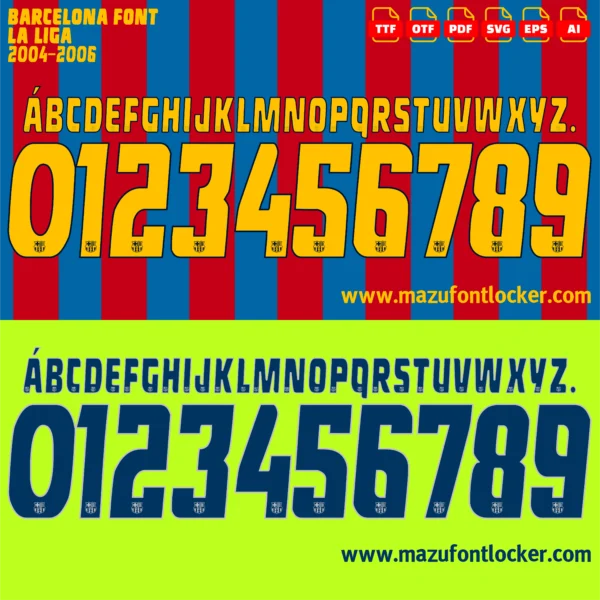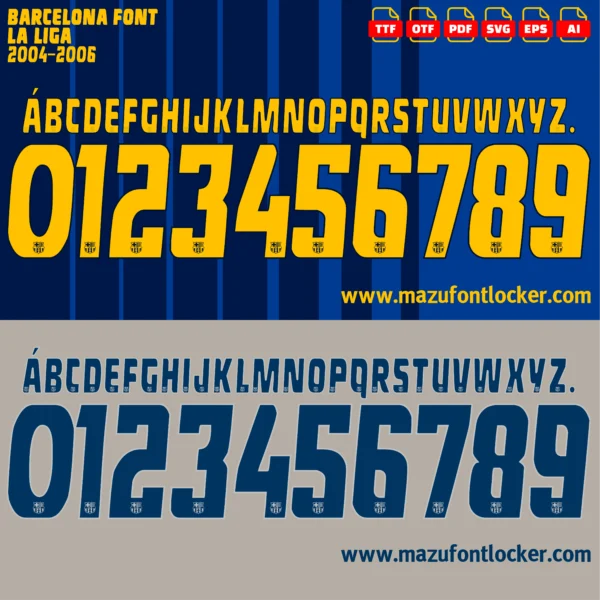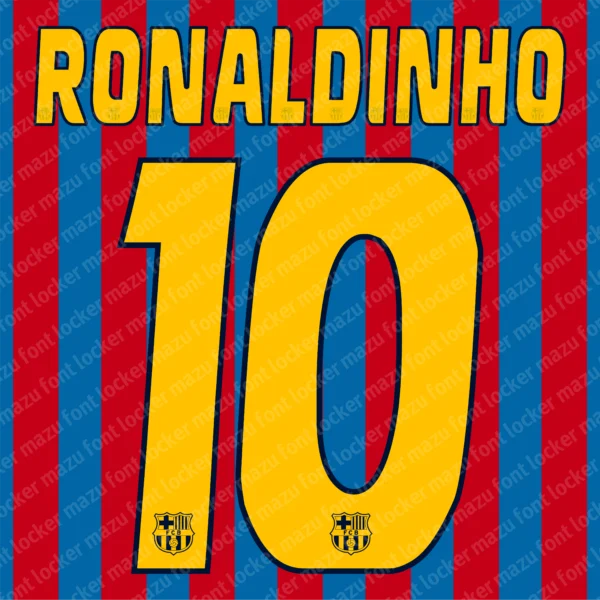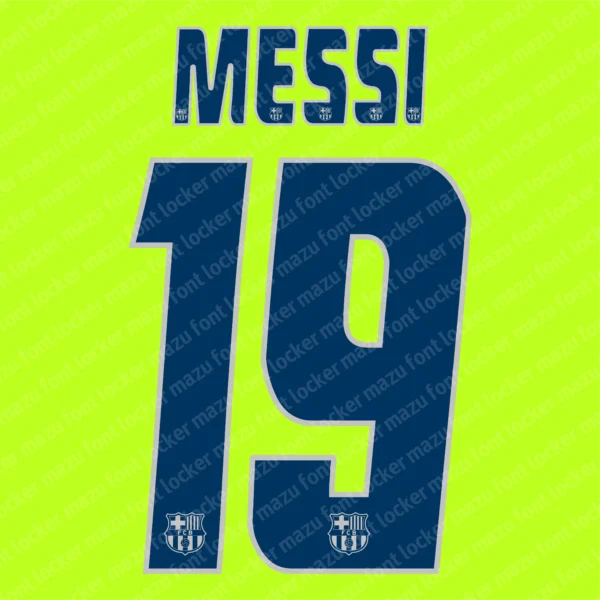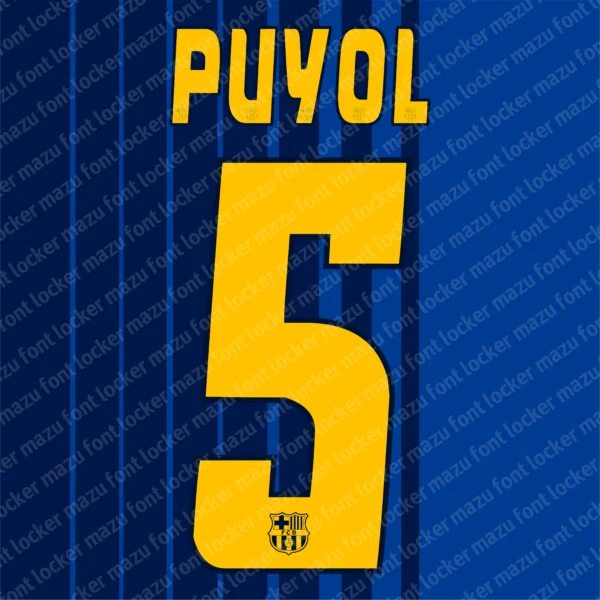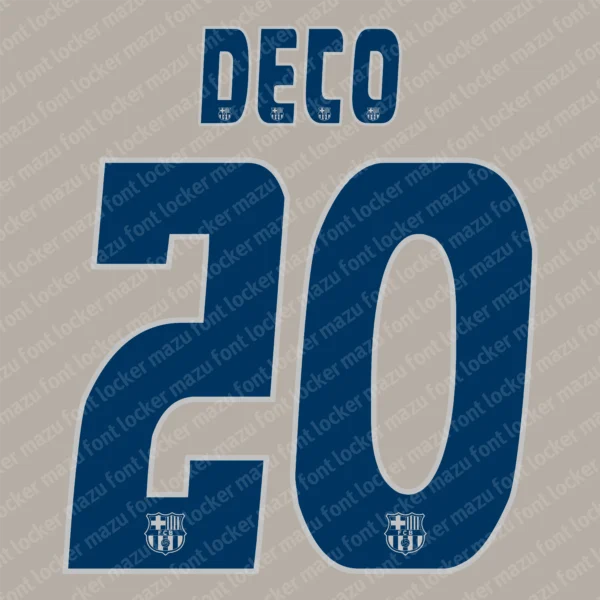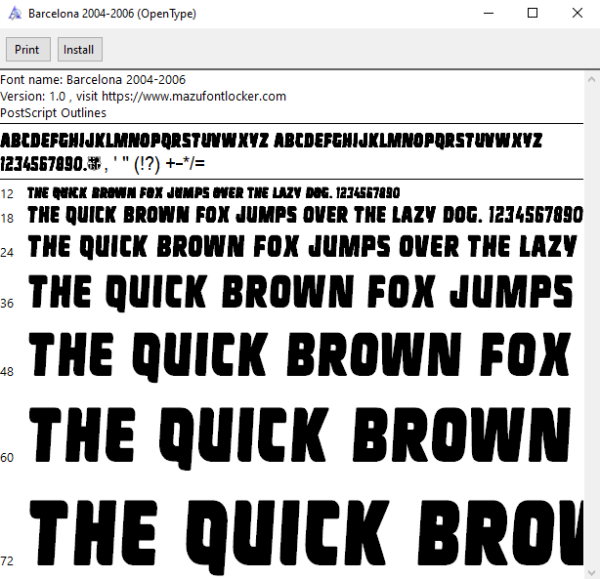
Barcelona 2004-2006 Font Vector – Iconic Blaugrana Heritage Typeface
The Barcelona 2004-2006 Font Vector is a premium typeface that accurately recreates the official match lettering worn by FC Barcelona during the legendary 2004-2006 seasons. This high-quality vector font kit captures the bold, clean, and instantly recognizable typography that perfectly complements the club’s iconic blaugrana identity.
Designed for professional designers, football enthusiasts, and passionate FC Barcelona supporters, the Barcelona 2004-2006 Font Vector delivers exceptional authenticity for creating realistic jersey mockups, football merchandise, social media graphics, match posters, and custom fan artwork. Every character has been carefully recreated to match the powerful and precise visual style of one of the world’s most successful and historic football clubs.
Why Choose Barcelona 2004-2006 Font Vector
This font stands out thanks to its precise vector construction and authentic club-inspired styling. Every letter and numeral has been meticulously recreated to match the official shirt lettering used throughout the 2004-2006 La Liga and European football campaigns. Whether you’re producing professional kit templates or creating eye-catching football content, the Barcelona 2004-2006 Font Vector delivers a genuine match-ready appearance inspired by the proud identity of the Catalan giants.
The lettering featured in the Barcelona 2004-2006 Font Vector combines clean geometric lines with powerful modern proportions. The result is a premium and highly readable typeface that reflects FC Barcelona’s winning mentality, attacking football, precision, and proud Blaugrana heritage.
- Complete uppercase A–Z alphabet and numbers 0–9 in authentic Barcelona 2004-2006 style
- Create authentic Barcelona 2004-2006 home and away jersey mockups
- Produce custom FC Barcelona-inspired merchandise and fan projects
- Recreate the distinctive look of Barcelona player names and squad numbers for creative projects
Barcelona 2004-2006 Season
The 2004-2006 period marks one of the most exciting chapters in FC Barcelona history as the club achieved domestic and European glory under Frank Rijkaard. Competing in La Liga and conquering the UEFA Champions League, Barcelona showcased its iconic blaugrana colors on the biggest stages of football.
Known for its rich history, passionate supporters, and commitment to attacking football, FC Barcelona remains one of the world’s most celebrated clubs. The Barcelona 2004-2006 Font Vector is designed to capture the bold visual character associated with the club’s modern football identity of that era.
The Barcelona 2004-2006 Font Vector is an independently designed typeface package inspired by the official shirt lettering associated with the 2004-2006 seasons. It has been carefully recreated for football enthusiasts, graphic designers, collectors, and creators producing custom jersey concepts, football artwork, and fan-made projects.